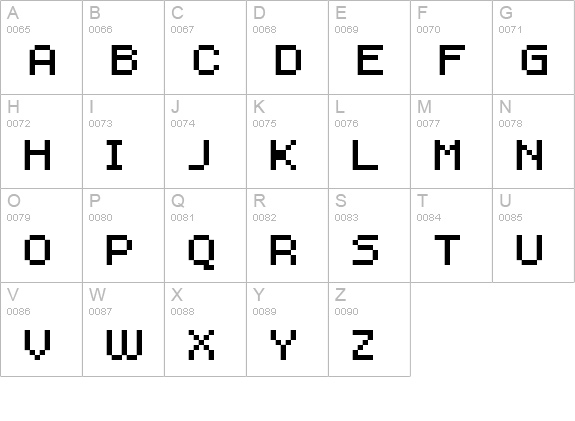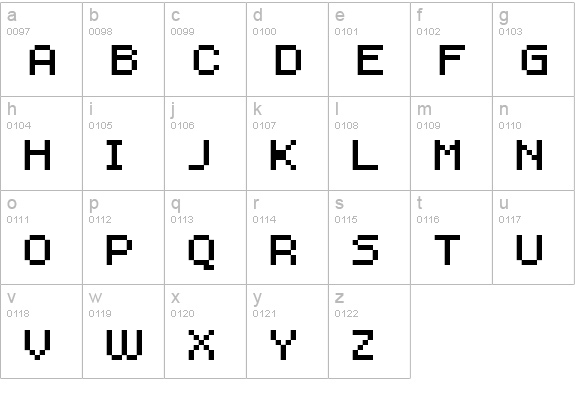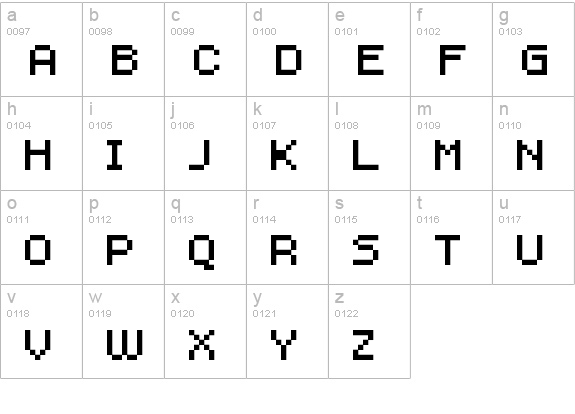
FFF Professional Extended Font Details
FFF Professional Extended is a distinctive, extended-width variant in the FFF typeface family \xE2\x80\x94 well suited to design and typography projects.
The FFF Professional Extended font is a versatile typeface that exudes elegance and modernity. With its clean lines and sophisticated design, this font is perfect for any project that requires a professional touch. Whether you are creating a sleek logo, designing a stylish website, or crafting a polished presentation, the FFF Professional Extended font will elevate your work to the next level. What's even better is that this premium font is available for free download at FontsMarket.com. That's right, you can access this high-quality font at no cost, making it an excellent choice for designers on a budget. Don't miss out on this opportunity to enhance your projects with the FFF Professional Extended font – download it today and take your designs to new heights!